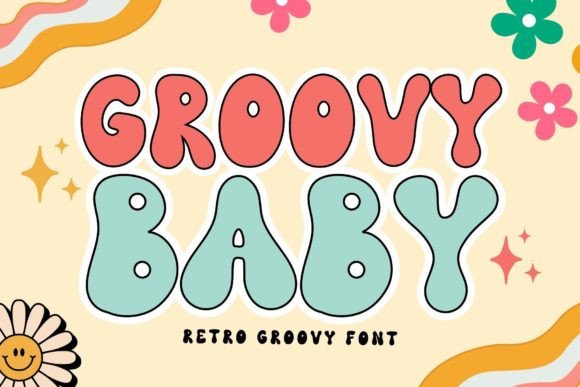
Groovy Baby Font: The Ultimate Retro Display Font for Your Creative Projects
Are you looking for a font that can add a touch of playfulness and authenticity to your designs? Look no further than the Groovy Baby Font! This cool retro display font is perfect for a wide range of creative projects, from blog posts and logos to branding, ads, invitations, and more.
What is Groovy Baby Font?
Groovy Baby Font is a unique and stylish display font that embodies the spirit of the groovy era. Its playful and authentic design makes it an ideal choice for designers and crafters who want to add a touch of nostalgia and fun to their work. Whether you’re creating a logo, branding materials, or social media graphics, Groovy Baby Font is sure to make your designs stand out.
Features of Groovy Baby Font
- Playful and Authentic Design: Groovy Baby Font features a unique and stylish design that is sure to add a touch of playfulness and authenticity to your designs.
- Retro Vibes: This font embodies the spirit of the groovy era, making it perfect for designs that require a retro or vintage touch.
- High-Quality Design: Groovy Baby Font is designed with high-quality craftsmanship, ensuring that it looks great in any design.
- Versatile: This font can be used for a wide range of creative projects, from blog posts and logos to branding, ads, invitations, and more.
Uses of Groovy Baby Font
Groovy Baby Font is a versatile font that can be used for a wide range of creative projects, including:
- Blog Posts: Add a touch of playfulness and authenticity to your blog posts with Groovy Baby Font.
- Logos and Branding: Use Groovy Baby Font to create unique and stylish logos and branding materials that stand out.
- Ads and Marketing Materials: This font is perfect for creating eye-catching ads and marketing materials that grab attention.
- Invitations and Greeting Cards: Add a touch of nostalgia and fun to your invitations and greeting cards with Groovy Baby Font.
- Planners and Photo Albums: Use Groovy Baby Font to add a personal touch to your planners and photo albums.
- Decorations: This font can be used to create fun and playful decorations for parties, events, and more.
Why Choose Groovy Baby Font?
There are many reasons why Groovy Baby Font is the perfect choice for your creative projects. Here are just a few:
- Unique and Stylish Design: Groovy Baby Font features a unique and stylish design that is sure to make your designs stand out.
- High-Quality Craftsmanship: Groovy Baby Font is designed with high-quality craftsmanship, ensuring that it looks great in any design.
Groovy Baby Font is a cool retro display font that is perfect for a wide range of creative projects. Its playful and authentic design makes it an ideal choice for designers and crafters who want to add a touch of nostalgia and fun to their work. With its high-quality craftsmanship, versatility, and affordability, Groovy Baby Font is a great choice for anyone looking to add a unique and stylish touch to their designs.